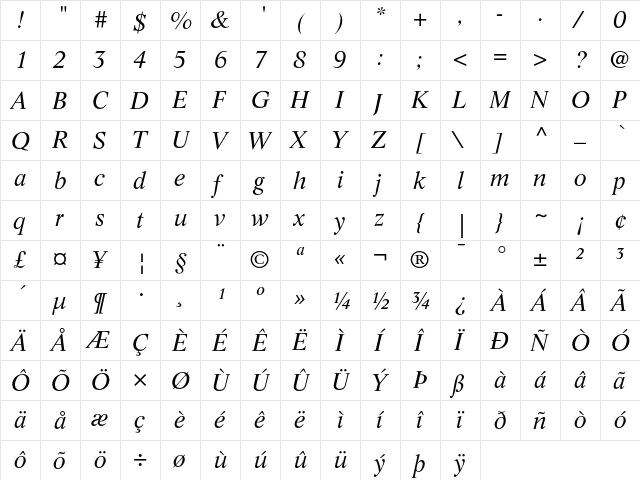
Life Italic Font Preview
Life Italic
Design Context for Life Typeface
Life is a composed and adaptable typeface that performs quietly and consistently across a wide range of design contexts. The slanted form adds forward momentum and visual energy.
Pro Tip: Use Life for emphasis, pull quotes, and subheadings where its slanted energy can add rhythm to the layout.